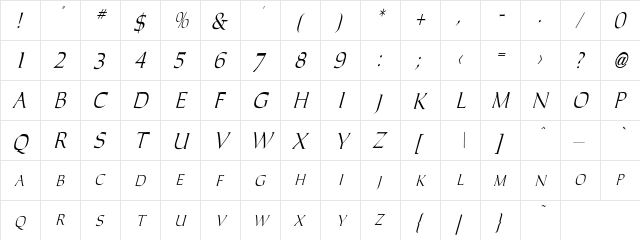
Caracub-Italic Regular
Design Context for Caracub-Italic Typeface
Caracub-Italic is a composed and adaptable typeface that performs quietly and consistently across a wide range of design contexts. The dynamic lean of this cut emphasises speed and emphasis in any layout.
Pro Tip: Use Caracub-Italic for emphasis, pull quotes, and subheadings where its slanted energy can add rhythm to the layout.